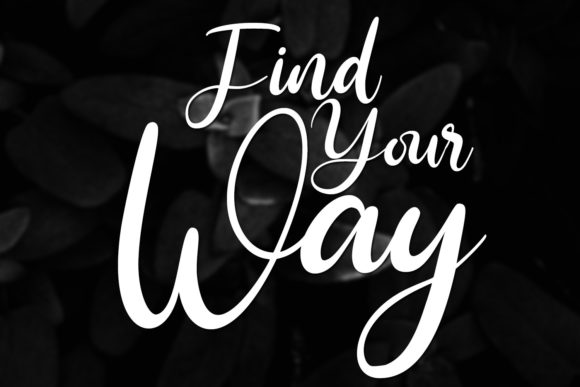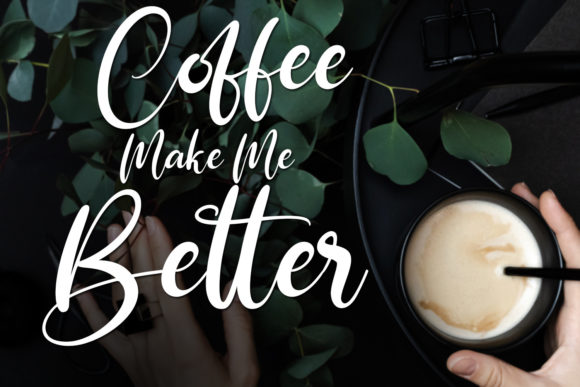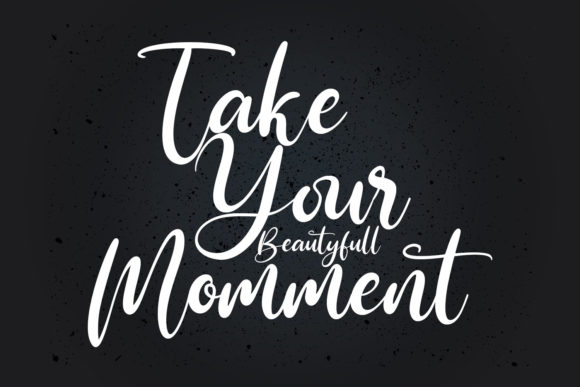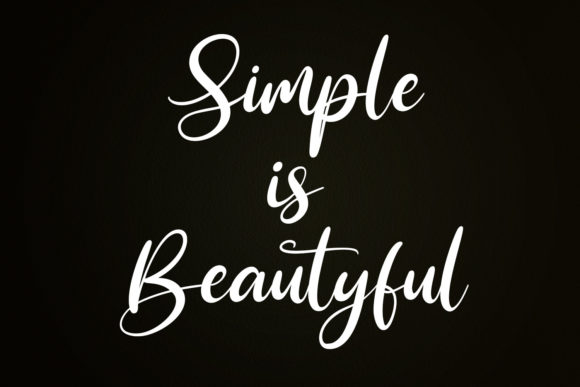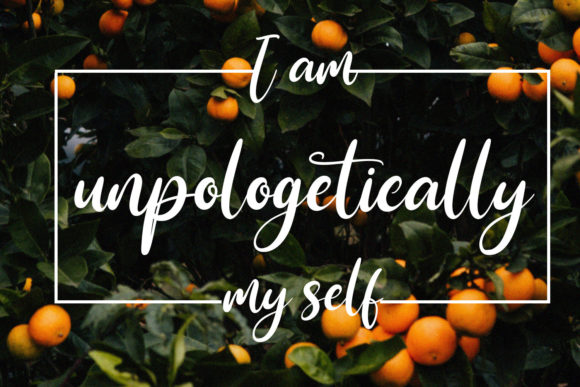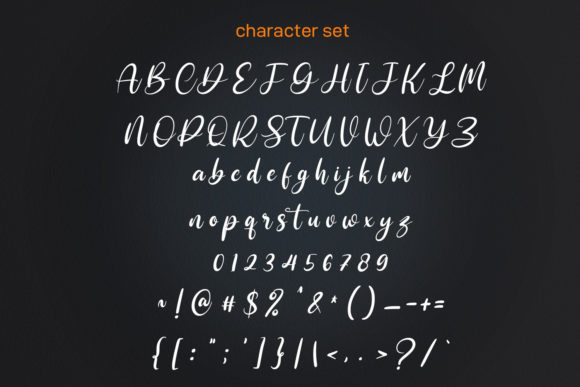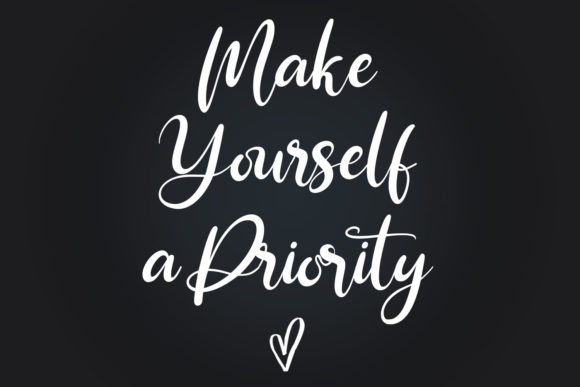
Chime Bells Font
About Chime Bells Font
Chime Bells is a beautiful script font. It features high contrast strokes, fun characters, ligatures and alternates. Add this romantic looking font to each of your love letters, wedding invitations or favorite design ideas, and you will be astounded by the outcome.